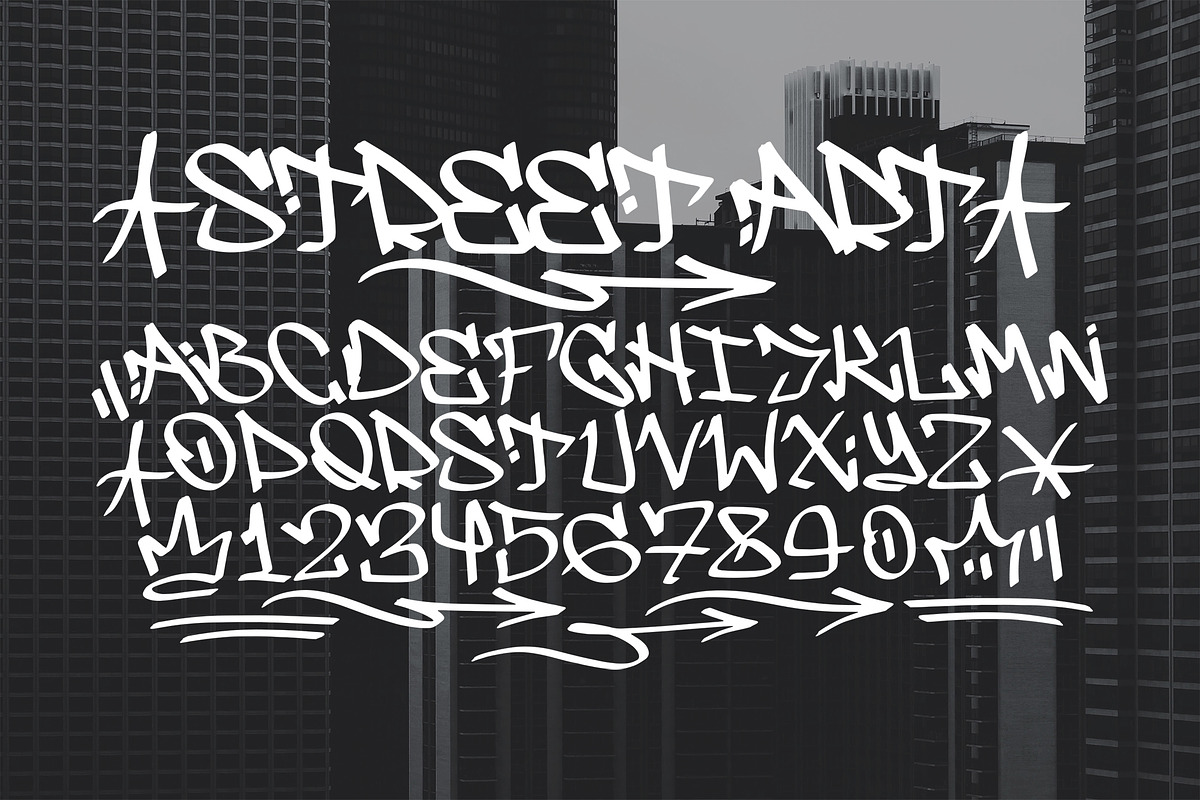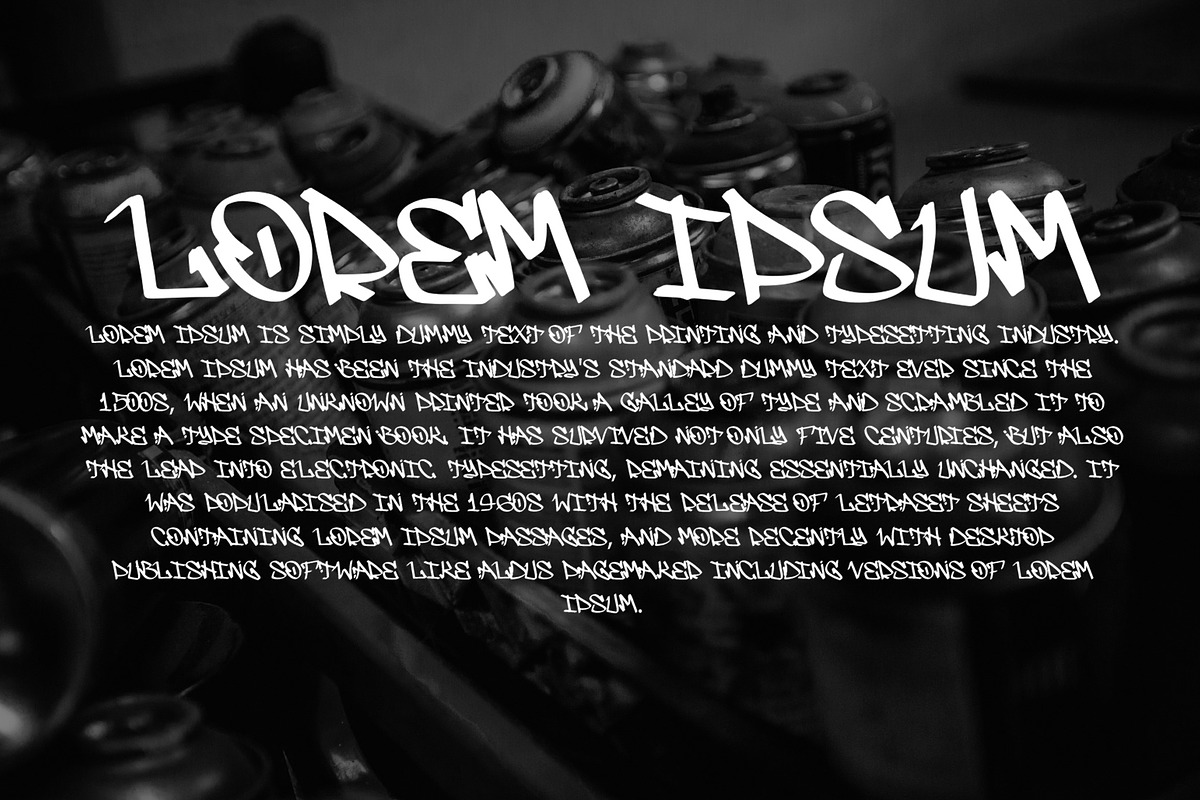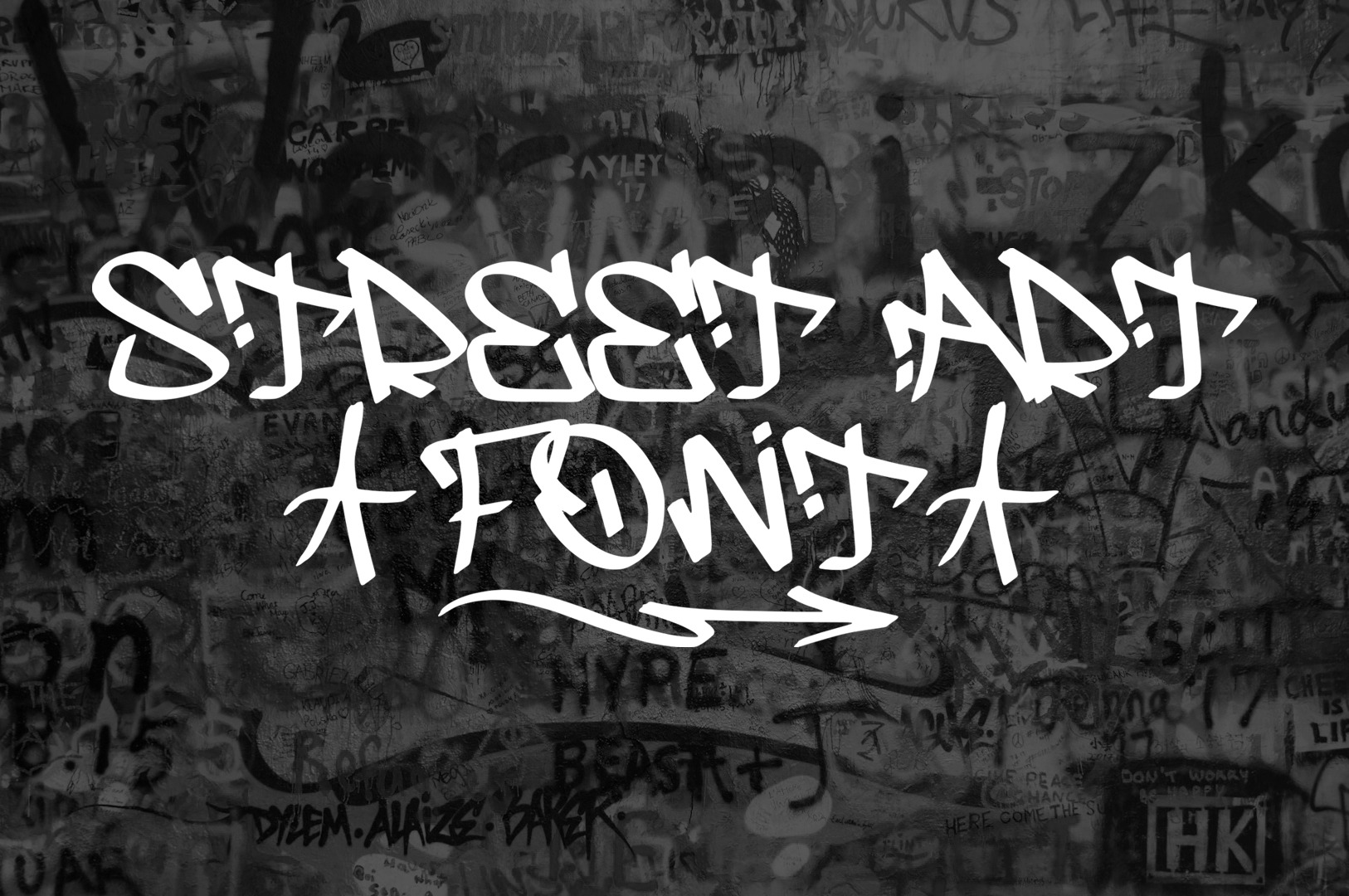
Graffiti font / street art font.
Graffiti font. This versatile set of letters and numbers is perfect for your design needs, whether you're working on a street-style project or creating a more refined look. The package includes a regular font that you can change, change the style, color and add new effects that you need.. This ensures that the typography can be scaled to any size without losing its grunge texture or hand-drawn charm. Ideal for use in 90s decor, vintage designs, video games, and modern youth culture projects.
This image is great for: 90s decor, video games, game development, cartoon creation, hip hop culture, graffiti art, urban street style, grunge rock posters, and punk-inspired designs. Whether you're working on an English text layout or creating a decorative print, this font set brings a rustic, textured feel that adds depth and personality to your work.